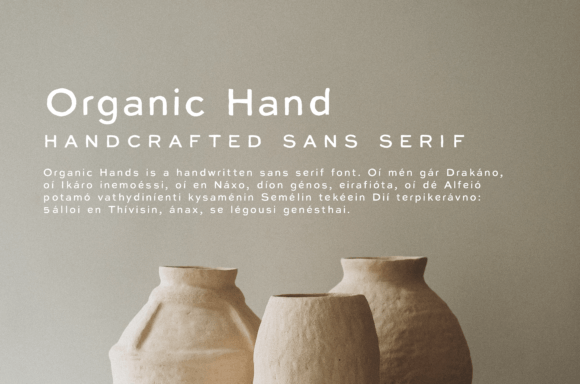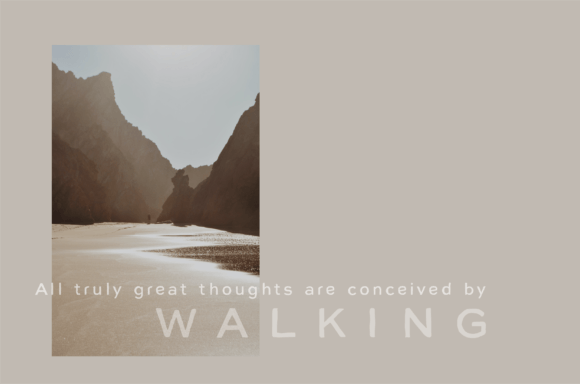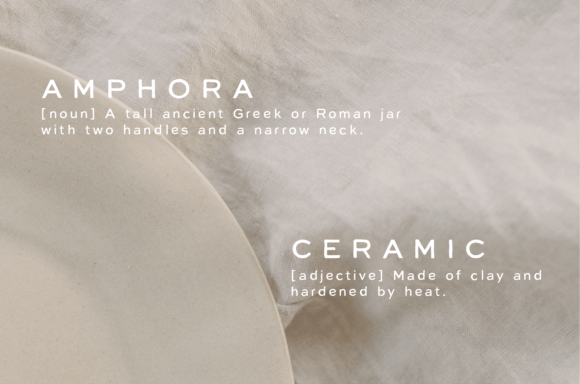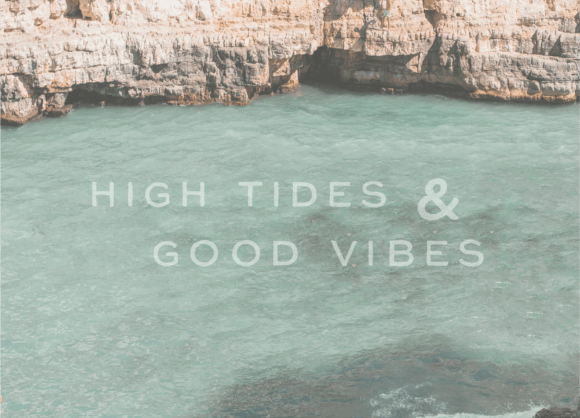
Organic Hand Font
About the Organic Hand Font
From logos to headlines, the Organic Hand Font is the perfect choice for making a lasting impression. Organic Hand is a stylish handcrafted sans-serif font. It has a sans serif’s clean minimalism and a handmade font’s originality. Ideal for branding, social media, invitations, and more and great for any boho design.
Its handcrafted feel makes it particularly effective for branding projects seeking a warm, approachable aesthetic, especially those in the lifestyle, food, or craft sectors. It works well in headlines, short text blocks on packaging, and social media graphics. However, its less-than-optimal legibility makes it unsuitable for body text or long-form content such as website copy or lengthy brochures. Avoid using it in UI contexts where clarity is paramount.
Organic Hand pairs beautifully with clean geometric sans-serifs like Montserrat or Lato for a balanced contrast of handmade charm and modern precision. For a more luxurious feel, consider pairing it with a delicate serif like Playfair Display. Avoid pairing it with other overly decorative or handwritten fonts, which would create visual clutter.
The font’s overall personality is friendly and approachable, with a touch of rustic charm. It conveys a sense of authenticity and handmade quality, making it ideal for brands emphasizing natural, organic, or handcrafted products or services.
Organic Hand Font Usage Examples
Organic Hand Font Example